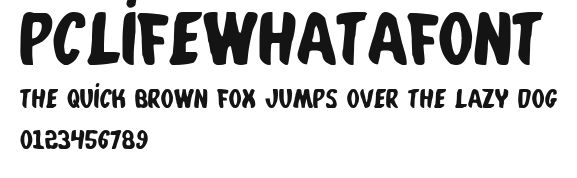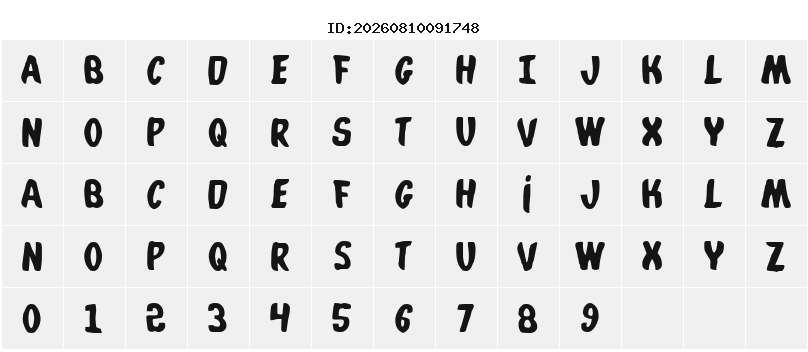
• Font Name: PCLifeWhatafont
• Font ID: Macromedia Fontographer 4.1 PCLifeWhatafont
• Full Font Name: PCLifeWhatafont
• Version: Macromedia Fontographer 4.1 30.11.2000
• PostScript Name: PCLifeWhatafont
• Character Count: 117
About PCLifeWhatafont.ttf
PCLifeWhatafont.ttf is a modern, elegant sans-serif font designed for ultimate readability and visual harmony. Perfect for branding, headlines, web design, and print materials.